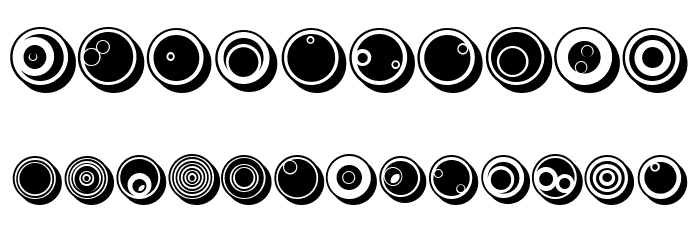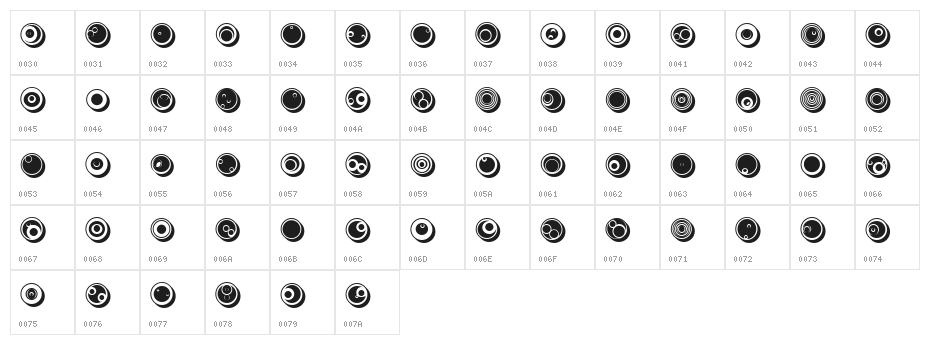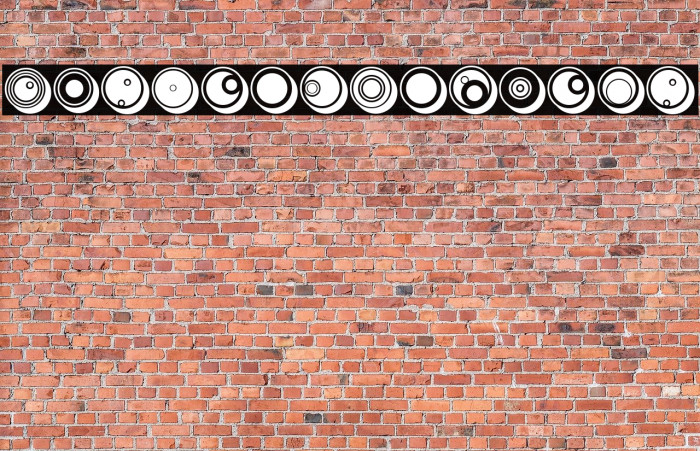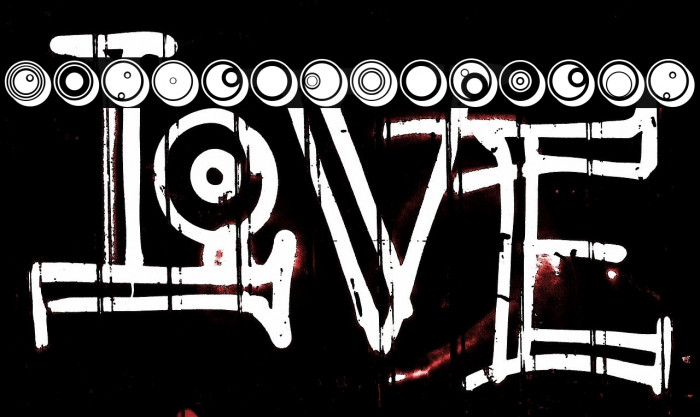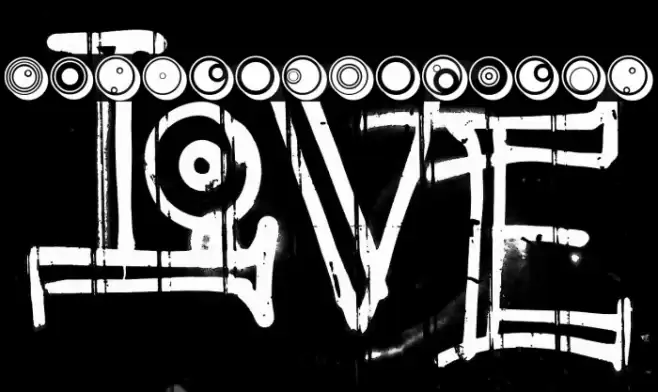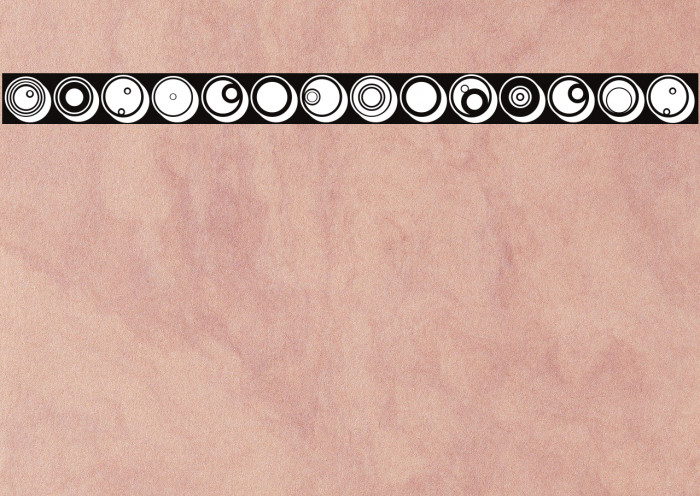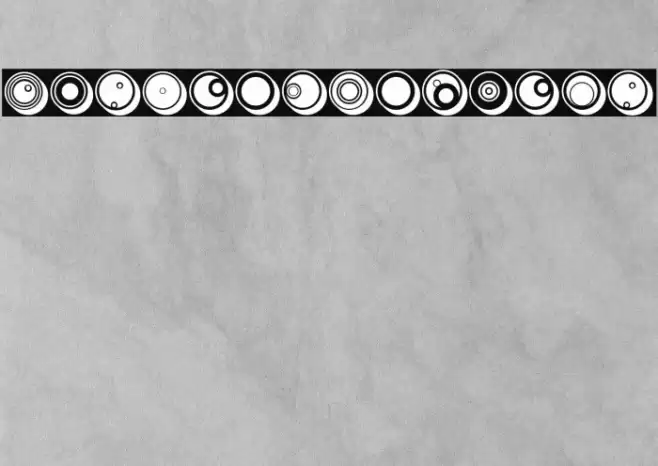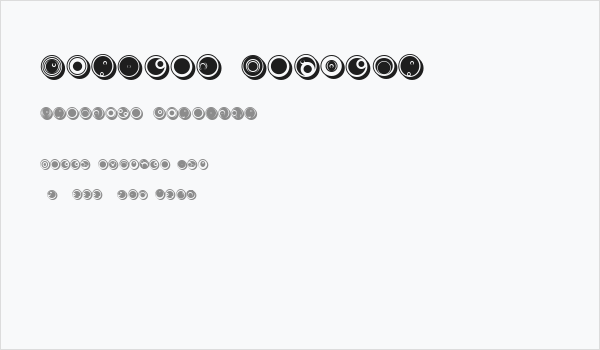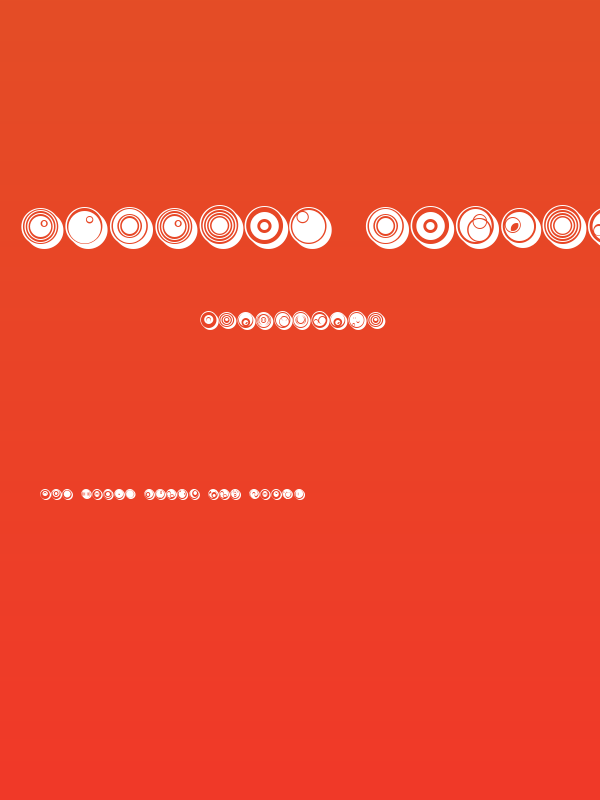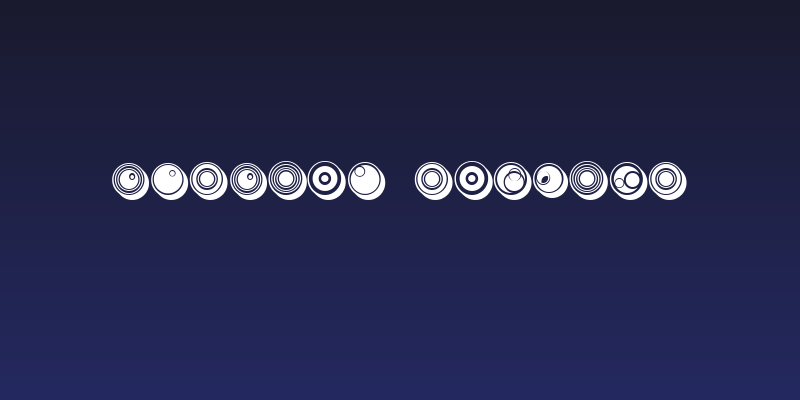
Circles Regular Font
Circles Regular Description
This font features a unique design where each character is represented by a series of concentric circles, creating a visually striking and abstract appearance. The circles vary in size and number, giving each character a distinct look while maintaining a cohesive style across the entire set. The bold use of black and white enhances the contrast, making the characters stand out prominently. This design is highly decorative and unconventional, making it suitable for creative and artistic projects that require a modern and avant-garde touch.
| Use Case | Logos, Artistic displays, Creative projects |
| Proposed Projects | Ideal for artistic posters, album covers, modern art installations, and creative branding projects. |